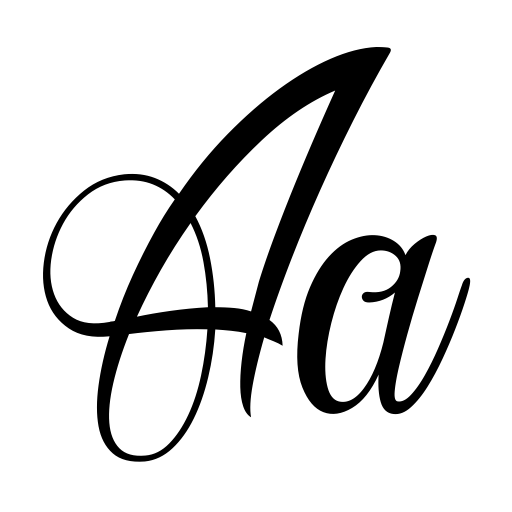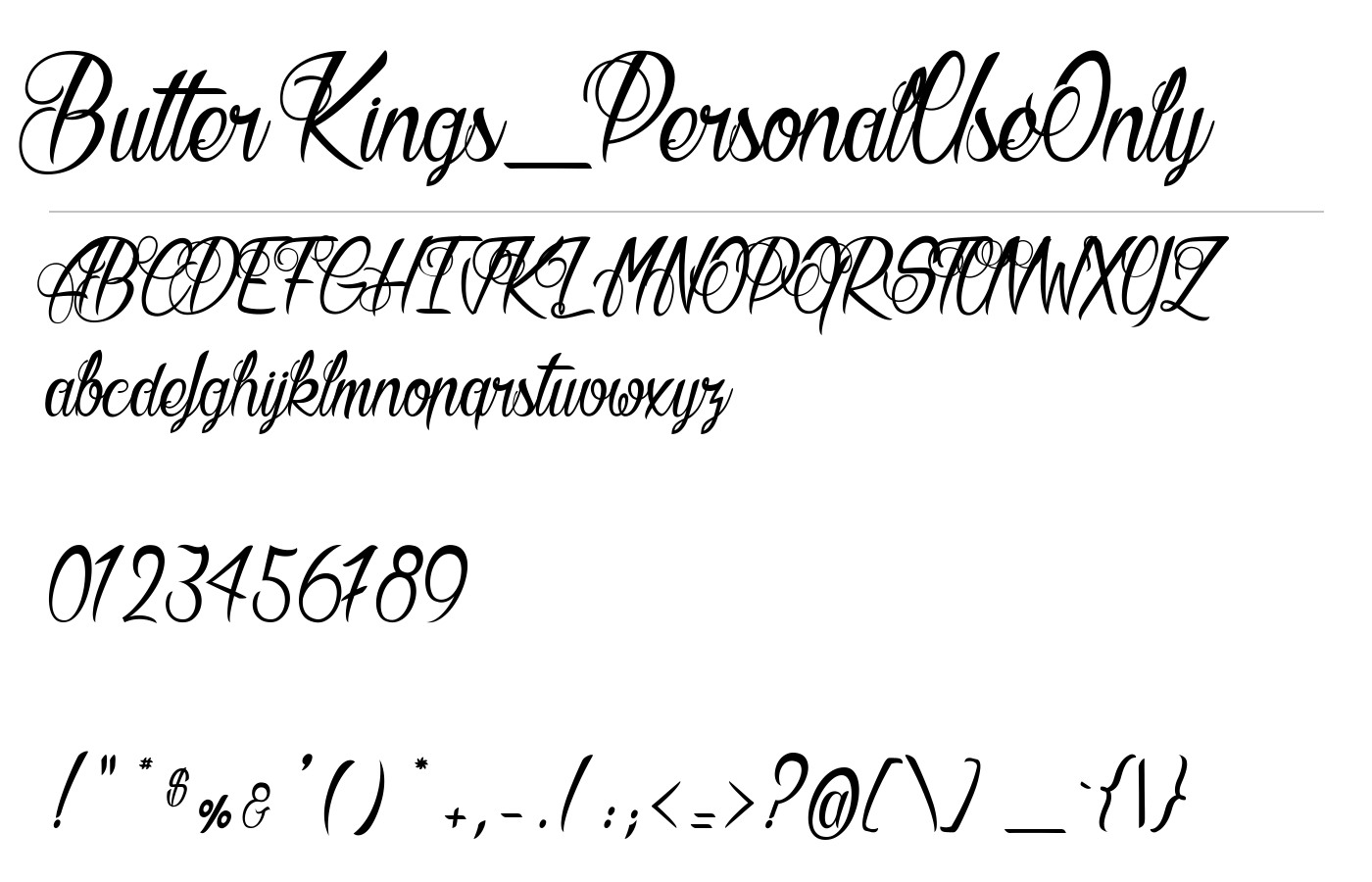
Butter Kings_PersonalUseOnly is a stylish script font with elegant, flowing letterforms that blend high contrast strokes and intricate swashes for a refined, sophisticated look. Its slender, slightly condensed characters and handwritten feel make it perfect for creating graceful branding, invitations, or editorial designs that demand a touch of luxury and personality. This font shines in settings where elegance and artistic flair are key, such as logos, packaging, and upscale event materials.
Butter Kings_PersonalUseOnly Font
About Butter Kings_PersonalUseOnly Font